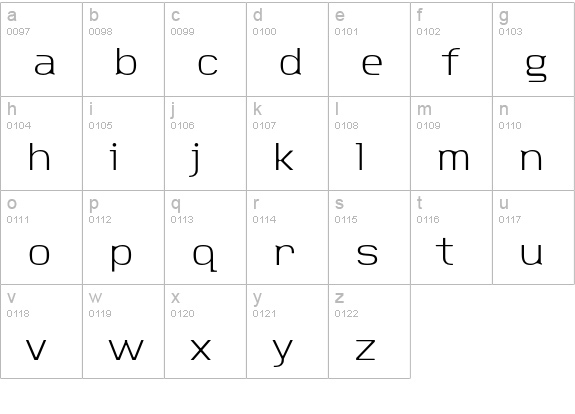
FauxCRA-Light is a refined, elegant variant in the FauxCRA typeface family \xE2\x80\x94 well suited to elegant body text, refined sub-headings, and luxury branding.
Introducing FauxCRA-Light font, a versatile and modern typeface that exudes elegance and sophistication. This sleek and stylish font features clean lines and a contemporary design, making it perfect for a wide range of projects, from branding and advertising to web design and print materials. FauxCRA-Light font is the perfect choice for those looking to add a touch of class to their designs. Whether you're creating a logo for your business or designing a sleek website, this font is sure to make a statement. And the best part? FauxCRA-Light font is completely free to download at FontsMarket.com! So why wait? Elevate your designs with this stunning font today and let your creativity shine.